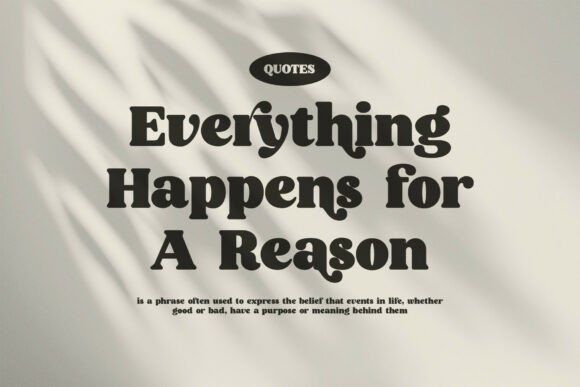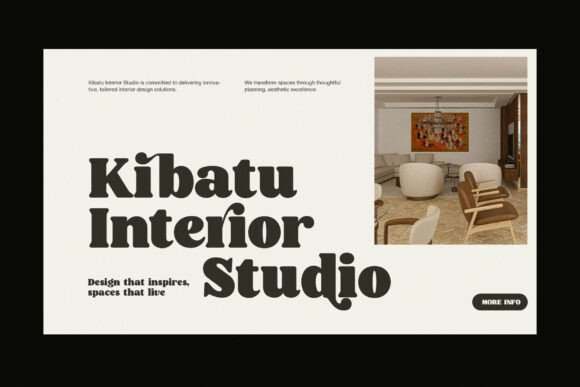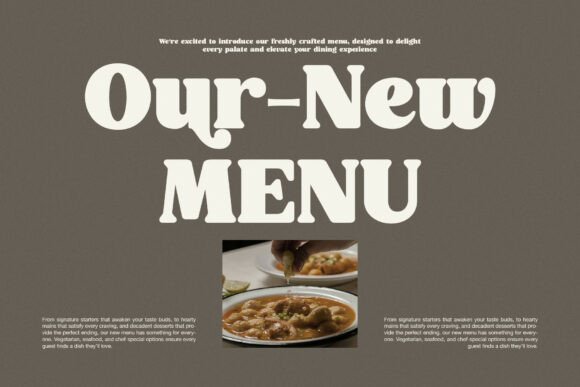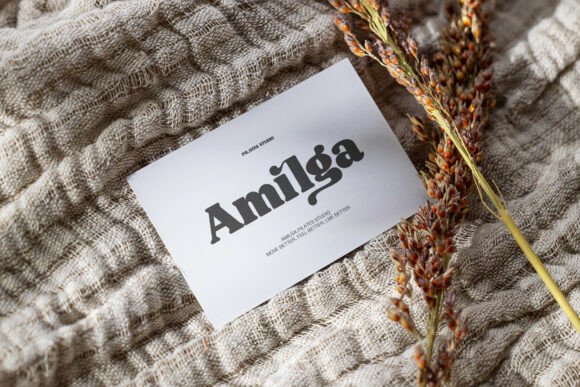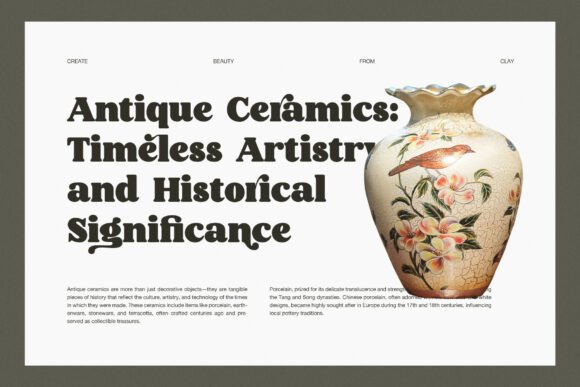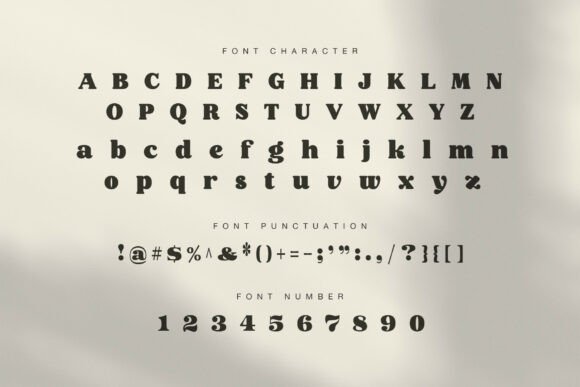
Introduction to Moringa Font
Have you ever stumbled upon a design element that instantly sparks creativity? For me, it was the Moringa Font – a striking display typeface that combines bold serifs with playful curves. As I began working on a personal project, I knew I had to incorporate this unique font into my design. Its warmth and character instantly elevated my creative project, making it stand out from the rest.
What I love about Moringa Font is its ability to add a personal touch to any design. Whether you’re working on a commercial project or a free download for a design community, this high-quality font is sure to make a lasting impression. With its transparent background, it’s perfect for designers looking to add a creative twist to their designs. As a valuable design resource, Moringa Font is a must-have for anyone looking to take their designs to the next level.
Key Features of Moringa Font
- High-quality, free download design resource ideal for creative projects
- Unique, hand-drawn style with a transparent background for easy customization
- Includes 6 font styles: Regular, Italic, Bold, Bold Italic, Outline, and Shadow
- Designed with a resolution of 300 DPI for high-quality printing and digital use
- Supports a wide range of languages, including Latin, Cyrillic, and Greek alphabets
Honest Review: Moringa Font
I recently came across the Moringa Font, and I must say it’s a great addition to any designer’s toolkit. As a designer, I’m always on the lookout for high-quality design resources that can elevate my creative projects.
The Moringa Font is a beautiful, elegant font that’s perfect for a variety of applications. With its transparent background, it’s easy to customize and pair with other design elements.
- High-quality design: The Moringa Font is a well-crafted, professional-looking font that’s perfect for any creative project.
- Transparent background: This feature makes it easy to customize and pair with other design elements.
- ⚠️ Limited font styles: While the Moringa Font is a beautiful font, it’s available in a limited number of styles, which may not be ideal for designers who need a wide range of options.
- ⚠️ Not suitable for large text: While the font is perfect for body text, it may not be the best choice for large headlines or titles.
Overall, the Moringa Font is a great design resource that’s perfect for designers who need a high-quality, elegant font for their creative projects. While it has some limitations, it’s a great addition to any design toolkit.
Moringa Font
Moringa Font is a high-quality, free design resource perfect for any creative project. With its transparent background, you can easily integrate it into your designs.
Tips for Getting the Most Out of Moringa Font
Use Moringa Font in combination with other design elements, such as graphics and images, to create visually appealing designs. Experiment with different font sizes and colors to add emphasis to your text.
Moringa Font is perfect for a variety of creative projects, including logos, business cards, brochures, and social media graphics. Its high-quality design and transparent background make it easy to use and customize.